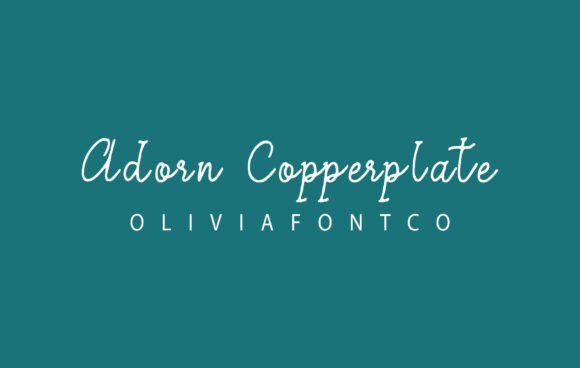
Fonts do more than display words — they give voice to your message. And few fonts do this with the same timeless grace as Copperplate. Known for its engraved look and delicate balance of formal structure and artistic flair, Copperplate Font can make your designs look classic, elegant, and remarkably modern all at once.
Whether you’re designing wedding invitations, branding projects, magazine headlines, or digital graphics, Copperplate adds sophistication that never goes out of style.
In this article, let’s explore what makes Copperplate Font so loved, where to use it, how to download it, and why it might just be the missing piece in your next creative masterpiece.
🖋 What is Copperplate Font?
Copperplate isn’t just a font; it’s a typographic tradition rooted in calligraphy. Inspired by the copperplate engraving technique used in 16th–18th century printmaking, this style is recognized by its sharp serifs, wide letterforms, and refined elegance.
While there are several fonts with “Copperplate” in their name, the most popular modern version is Copperplate Gothic, designed by Frederic W. Goudy in the early 1900s. This typeface uniquely blends small, triangular serifs with clean, geometric shapes — resulting in text that feels both formal and contemporary.
🌟 Why Designers Love Copperplate Font
Copperplate Font has become a designer favorite across print and digital media. Here’s why:
✅ Elegant & timeless: Evokes classic engraving and hand-lettered styles without looking outdated.
✅ Versatile: Works equally well for luxury branding, professional business cards, and creative projects.
✅ Highly legible: Even in smaller sizes, its open letterforms and subtle serifs remain clear.
✅ Unique character: Combines gothic structure with delicate serifs, adding personality and class.
✅ Formal yet friendly: Balanced enough for wedding invitations or upscale restaurant menus, yet modern enough for digital headers.
The beauty of Copperplate is that it feels sophisticated without being overly ornate.
🎨 Where Copperplate Shines
Copperplate’s refined look makes it suitable for a range of creative applications:
💍 Wedding invitations & stationery: Adds a formal, engraved effect perfect for elegant events.
🛍 Branding & logos: Especially popular for luxury goods, law firms, financial institutions, and boutique brands.
📰 Magazine covers & editorial titles: Provides a strong, dignified headline style.
📦 Packaging design: Elevates cosmetics, gourmet foods, wine labels, and more.
📱 Social media graphics: Stylish quotes, announcements, and profile banners.
🖼 Certificates & diplomas: Classic choice for formal or ceremonial documents.
👕 Merchandise: Looks sleek and sophisticated on t-shirts, hats, or tote bags.
Wherever you want to combine tradition with contemporary elegance, Copperplate fits beautifully.
✏ Not Really Handwritten — But Inspired by Handcraft
While you might see Copperplate described as an “authentic handwritten font,” technically it isn’t handwritten in the script sense. Instead, it’s based on engraved lettering done by hand, which historically involved writing on copper plates with a fine-pointed tool.
The result: a font that feels handcrafted, precise, and artistic — capturing the best of calligraphy’s romance with the clarity of print.
🔧 Tips for Using Copperplate in Design
To make the most of Copperplate Font:
Use for short text: Best for titles, logos, or headers rather than paragraphs.
Pair with a serif or sans-serif: Combine with simple fonts like Garamond, Helvetica, or Lato to balance its structure.
Consider spacing: Its wide letters can look better with slightly tighter tracking in certain designs.
Mix weights & styles: Use Copperplate Bold for emphasis and Regular or Light for supporting text.
Limit decorative clutter: Let Copperplate’s natural elegance shine by avoiding too many flourishes.
✨ Final Thoughts: Classic Beauty for Modern Creators
Copperplate Font isn’t just about words — it’s about style, heritage, and sophistication.
Its engraved inspiration gives every design an air of formality, trust, and timeless elegance.
Whether you’re branding a boutique, designing wedding stationery, or crafting a memorable headline, Copperplate can transform your work into something that feels both refined and unforgettable.